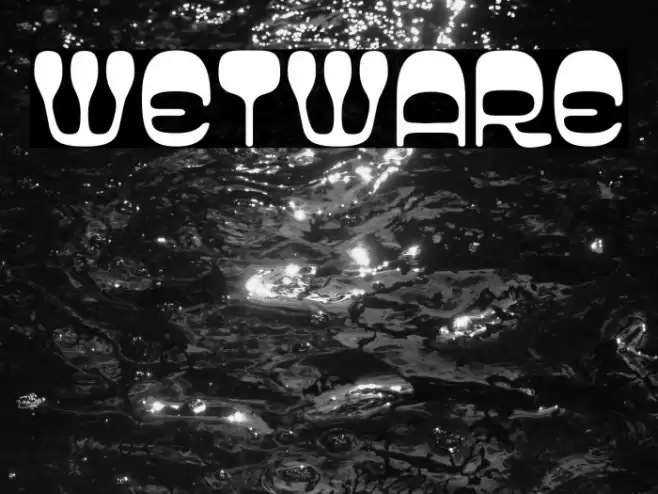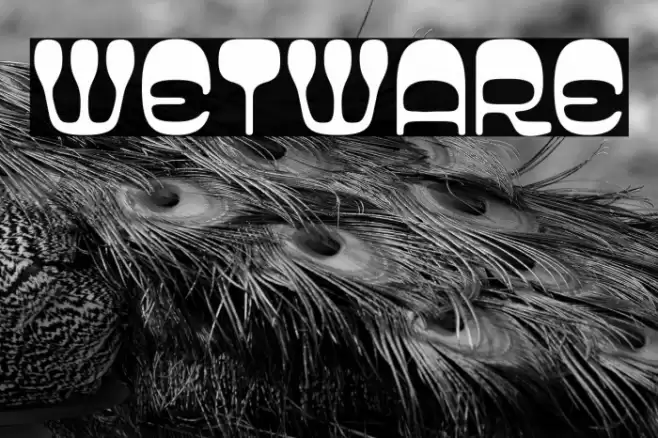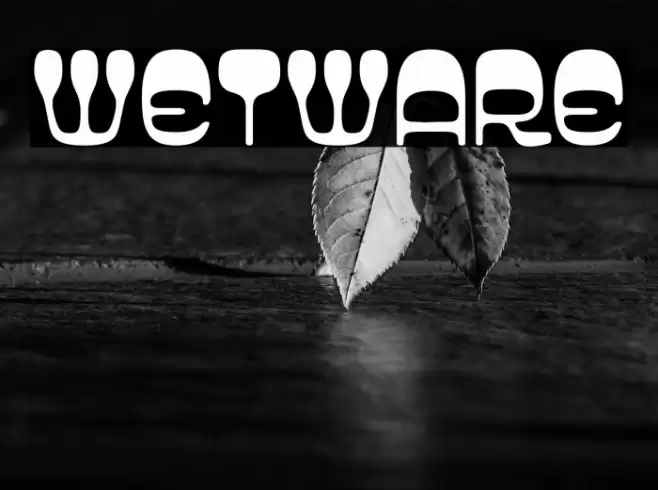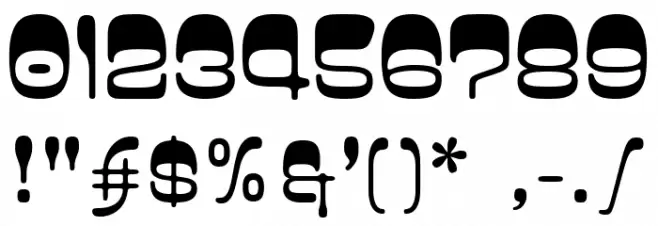
Wetware Font
Wetware Description
This font features a bold and rounded design with a futuristic and playful aesthetic. The characters are wide and have a unique, almost bubble-like appearance, which gives them a distinctive and modern look. The uppercase and lowercase letters maintain a consistent style, with smooth curves and a uniform thickness throughout. The numbers and special characters follow the same design principles, ensuring a cohesive appearance across all glyphs. This font's boldness and rounded edges make it particularly eye-catching and suitable for creative and contemporary projects.
A bold, rounded font with a futuristic and playful style from Regular fonts.
- Proposed Projects: Ideal for branding, posters, video game graphics, and any project requiring a modern and playful touch.
- Width: Expanded